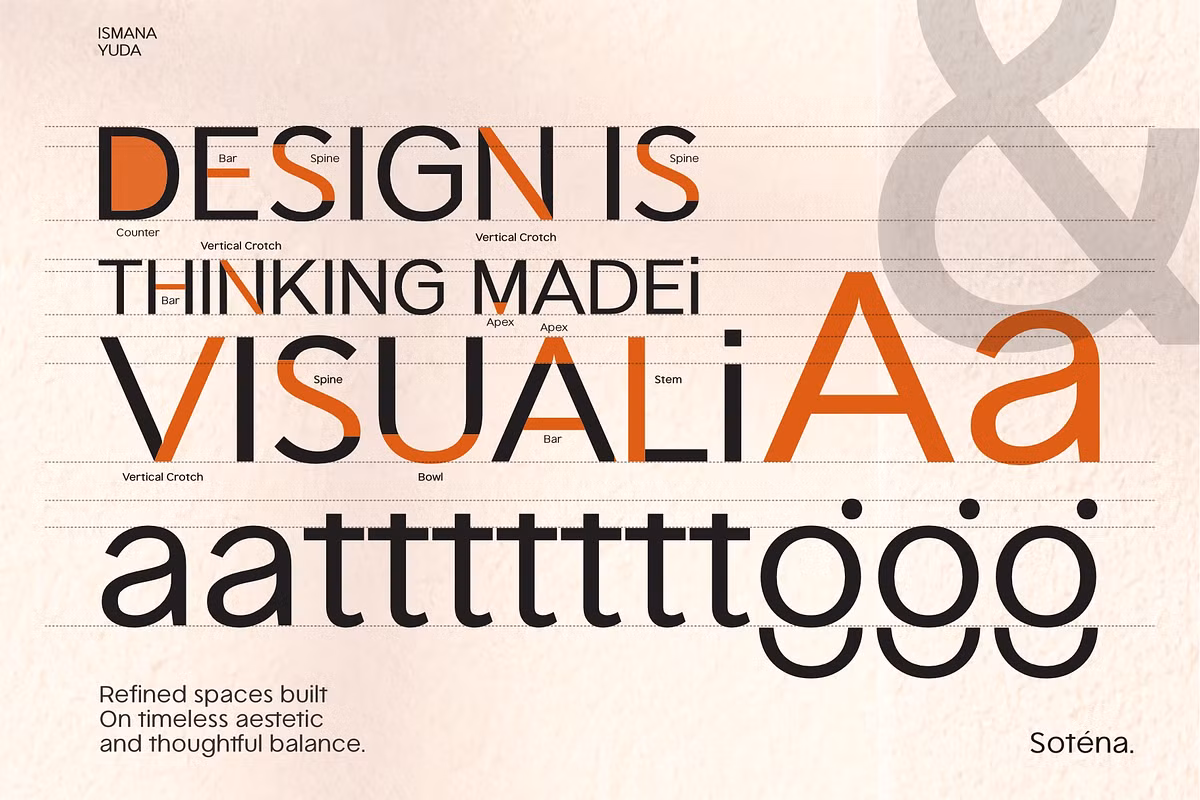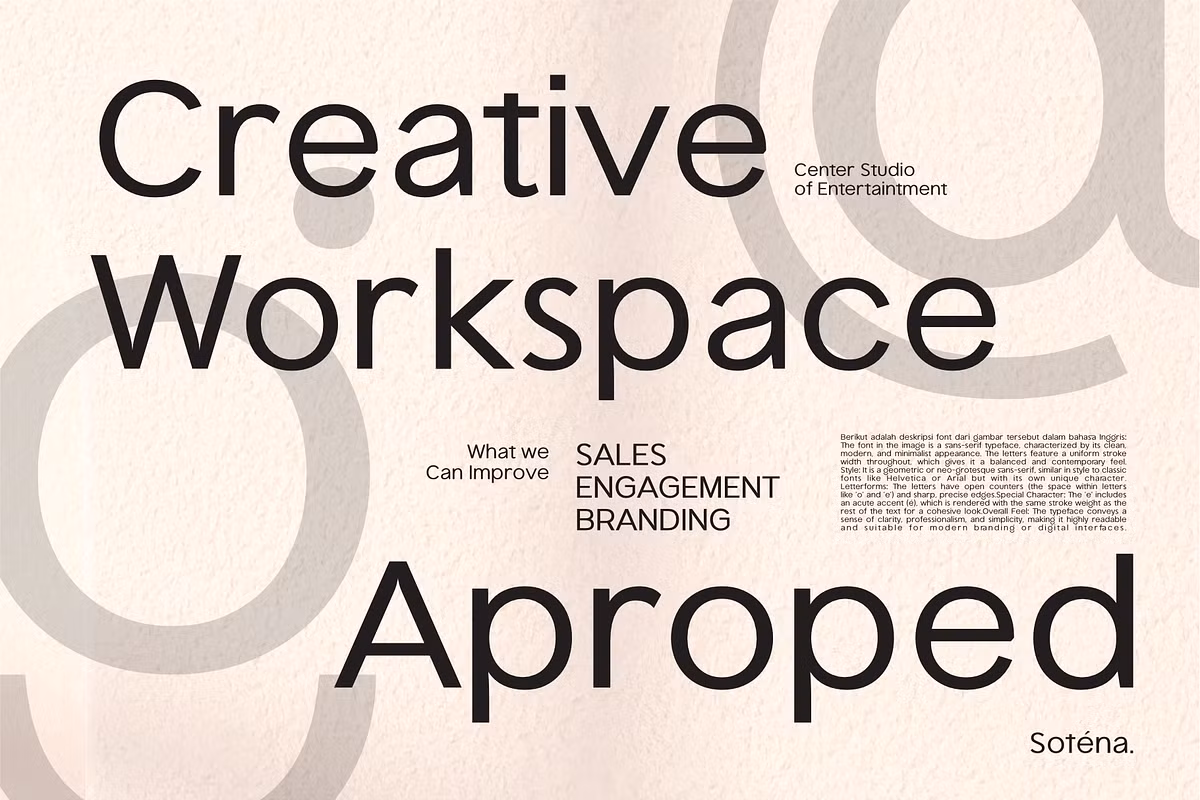
Sotena: Modern Clean Sans Serif Typeface with Multilingual Support
Sotena is a modern and versatile typeface designed by the talented Ismana Yuda. This typeface is characterized as a Modern Clean Sans Serif, making it an ideal choice for various design applications. With its minimalist lines and high readability, Sotena is perfect for both digital and print media. In this article, we will explore the design style, character sets, use cases, pairing suggestions, and licensing aspects of the Sotena typeface.
Design Style of Sotena
Sotena’s design is all about keeping things simple and modern. It uses clean lines and a minimalist approach to create a look that’s perfect for today’s designs. Because it’s a sans serif font, it doesn’t have all the extra decorations you see in serif fonts, which makes it really easy to read in lots of different situations. This simplicity is what gives Sotena its contemporary feel, making it a great choice for designs that need to look fresh and up-to-date. Overall, Sotena’s design style is all about balance and clarity, which is why it works so well in a variety of contexts.
Sotena is a pretty cool font that stands out from other sans serif fonts. It has a well-balanced design that makes it easy to read, even when it’s small. This makes it a great choice for lots of different uses, like websites, apps, and printed stuff. What really sets Sotena apart is its modern feel, which is perfect for today’s designs. The way it’s structured gives you clear and legible text, no matter where you use it. Whether you’re designing a user interface or creating printed materials, Sotena is a solid option. Its versatility and readability make it a great pick for anyone looking for a reliable sans serif font.
Moreover, the uniform stroke width and well-defined letterforms contribute to its modern aesthetic. With Sotena, you can achieve a sleek and professional look that resonates with audiences across different cultures and backgrounds.
Character Sets and Multilingual Support
Sotena really stands out with its huge range of characters – we’re talking uppercase and lowercase letters, numbers, and even ligatures. This makes it a great choice for designers who want to create a complete and cohesive look with their typography. The ligatures are especially useful, as they help the text flow better visually, creating a more harmonious overall effect. By including these ligatures, Sotena allows designers to add an extra layer of sophistication to their work, making it easier to create beautiful and readable text. Whether you’re working on a large-scale project or just a small design element, Sotena’s extensive character set gives you the flexibility and creativity you need to bring your vision to life.
Sotena is special because it has a lot of different characters. It also works well with many languages, like English, French, and Spanish. This means designers can use it to make things that people all around the world can read and understand. The typeface is good at handling accents and diacritics, which are important for making sure words look right in different languages. So, whether you’re making something for people who speak one language or many, Sotena helps your words look clear and easy to read. It’s a great choice for designers who want to reach a global audience.
The multilingual capability is particularly beneficial for brands that operate in diverse markets. With Sotena, language barriers become less of a concern, allowing for a cohesive brand identity across different regions.
Use Cases for Sotena
Sotena is a really versatile font that can be used in lots of different situations. Let’s take a look at some examples of where it works really well.
- Sotena has a really modern look that makes it perfect for creating logos and other branding stuff, which helps companies show they’re up to date and fresh.
- Web Design: Its high readability on screens makes Sotena suitable for websites and digital platforms, ensuring that users can easily engage with content.
- Print Media: Whether it’s brochures, flyers, or posters, Sotena’s clean lines and minimalist design work well in print, making text easy to read.
- Social Media Graphics: The font’s versatility allows for creative applications in social media posts, helping to capture attention and convey messages effectively.
With its modern design and adaptability, Sotena is a go-to typeface for designers looking to make a statement while maintaining clarity and professionalism.
Pairing Suggestions for Sotena
When designing with typography, choosing the right font combinations can really make a big difference in how your overall design looks. Sotena is a pretty versatile font that works well with lots of other typefaces, so you can create layouts that are both harmonious and easy on the eyes. To get you started, here are some suggestions for pairing fonts with Sotena:
- Sotena and Playfair Display: Combine the modern, clean lines of Sotena with the elegant serifs of Playfair Display for a sophisticated aesthetic in print and digital media.
- Sotena and Montserrat: Pairing Sotena with Montserrat creates a contemporary look that works well for branding and web design, offering a pleasing contrast between the two sans serifs.
- When you put Sotena and Merriweather together, you get a really cool mix of old and new styles. This combination makes your text look warm and easy to read, which is perfect for designs that have a lot of words.
So, what makes Sotena special? It’s a clean and simple sans serif typeface that’s really easy to read. Plus, it works with lots of different languages, which is super useful. Because of its versatility, you can use Sotena for all sorts of things, like creating a brand or designing a website. And the best part? It’s really easy to pair with other fonts, and the licensing is straightforward. All of this makes Sotena a great addition to any designer’s collection of tools. It’s basically a go-to font that can help you create some really great designs. Whether you’re working on a big project or just need a reliable font for everyday use, Sotena is definitely worth considering. With its minimalist design and extensive features, it’s a typeface that can help you achieve your goals and make your designs stand out.